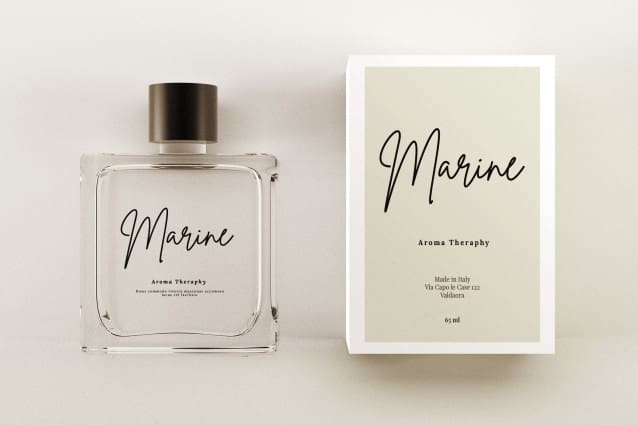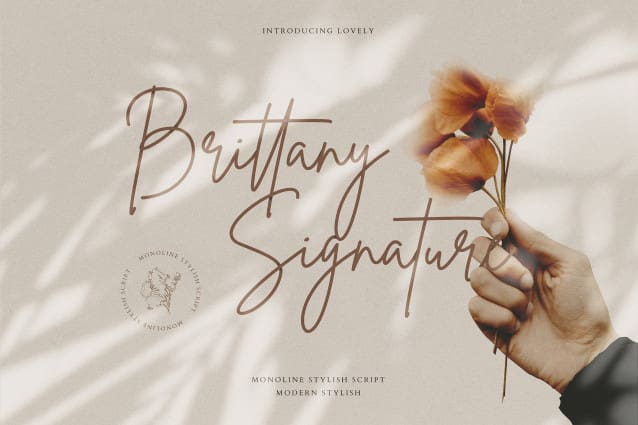
Brittany Signature Typeface
Brittany Signature Typeface consists of a fashionable sophisticated signature-style script with its own unique curves and an elegant inky flow. People usually use Brittany font as an elegant touch and signature-like font.
Moreover, the stunning Brittany font is ideally suited for any project requiring a touch of handwriting flair. For example, you can apply it to photography, watermarks, social media posts, advertisements, logos and branding projects, invitations, product designs, labels, stationery, wedding designs, product packaging, special events, or any other context that demands a handwritten aesthetic.
Furthermore, when selecting a font for your design, the features significantly influence its legibility. Although the Brittany font boasts a distinctive signature style, it also presents a decorative and curvy form. Additionally, it maintains an elegant yet still legible appearance.